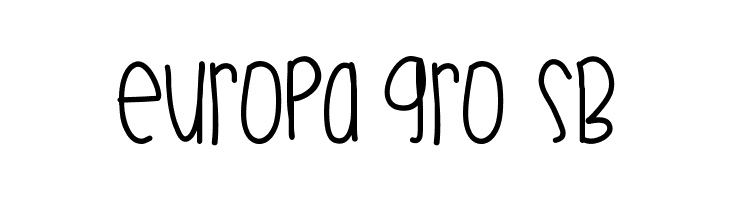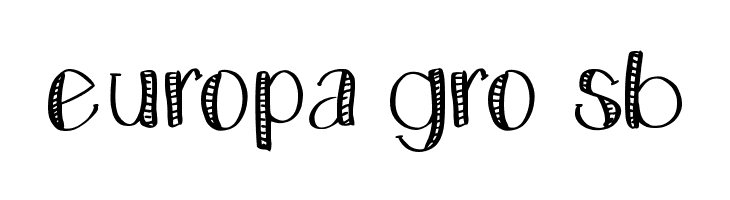
Hand-drawn decorative font with unique Christmas tree illustrations for each character.
A playful, hand-drawn font with decorative striped patterns.
An elegant script font with intricate swirls and decorative flourishes.
A playful, hand-drawn font with a casual and whimsical style.
A playful, bold font with characters in flag shapes, perfect for festive designs.
A playful, bold font with characters in flag shapes, ideal for festive designs.
A lively, elegant script font with flowing, interconnected letters.
A bold decorative dingbat font with wedding and celebration icons.
A collection of festive and whimsical icons themed around celebrations.
Cartoon dingbat font with celebration and party-themed illustrations.
A bold, festive font with candle-like accents, perfect for celebrations.
A bold, festive font displayed on triangular pennants, ideal for celebrations.
A bold, festive font with candle-topped letters, perfect for celebrations.
A decorative dingbat font with playful, festive icons for celebrations.
A decorative font with holiday-themed icons for various celebrations.
Holiday and celebration-themed dingbat icon font.
A decorative font with festive, mask-like embellishments on each letter.
A festive serif font with snowflake embellishments, ideal for holiday themes.
A festive, ornament-themed font ideal for holiday designs.
A bold, candy-striped font with a playful and festive style.
A playful font with characters inside balloon shapes, perfect for festive designs.